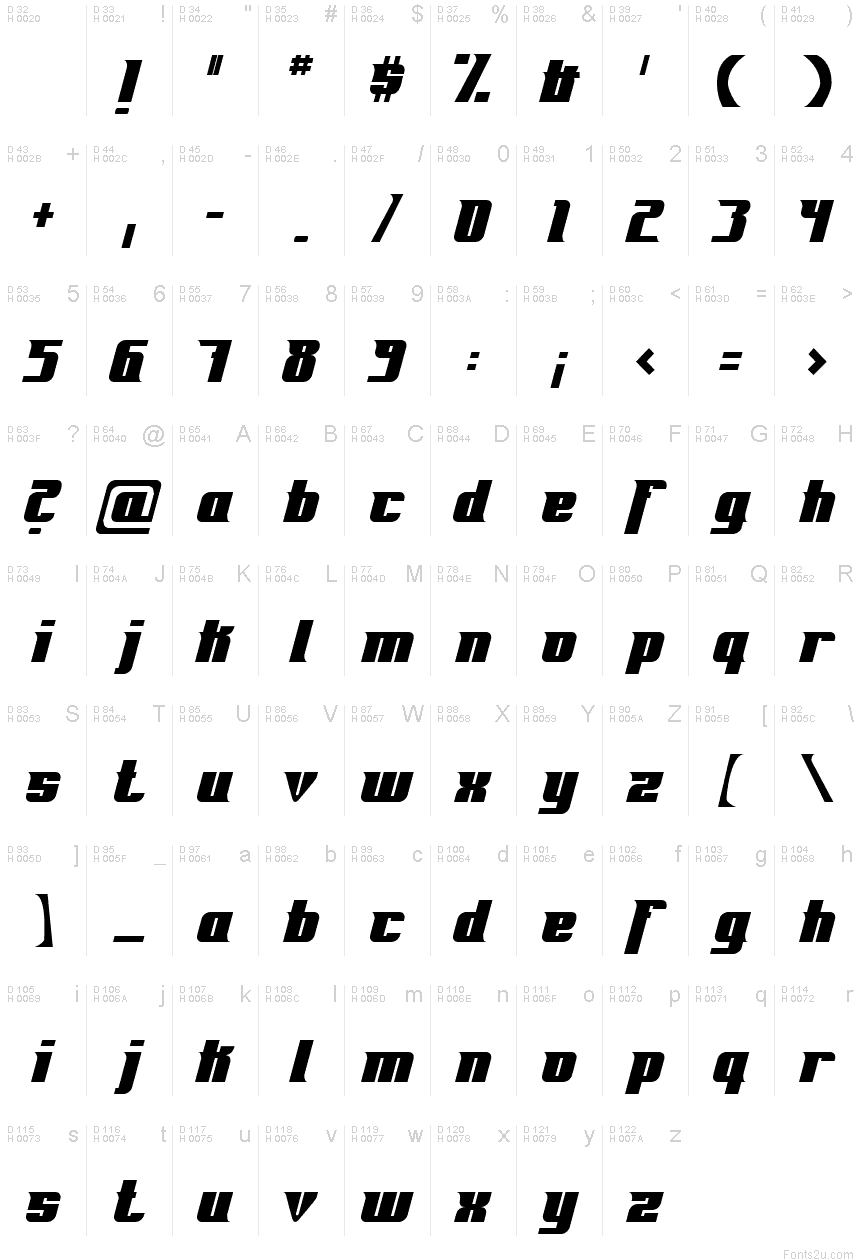
Fontovision
Fontovision font by Dieter Schumacher is a free modern display typeface. Its bold, forward-leaning forms and razor-straight edges feel like they’ve been pulled tight by speed and air resistance, giving every word a strong sense of motion. The tall, condensed letters with their clean vertical cuts create dense, punchy word shapes that grab attention instantly on any surface.
Using Fontovision, you can push energy into sports branding, racing posters, gaming covers, energy drink labels, event banners, and bold social graphics. This free font shines in oversized titles and logos, then can be paired with a simple geometric sans in smaller text to keep layouts clear and readable.